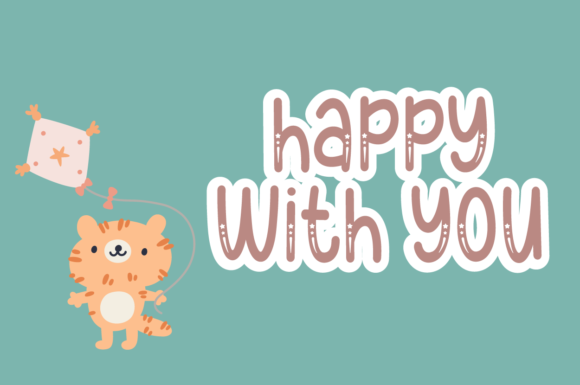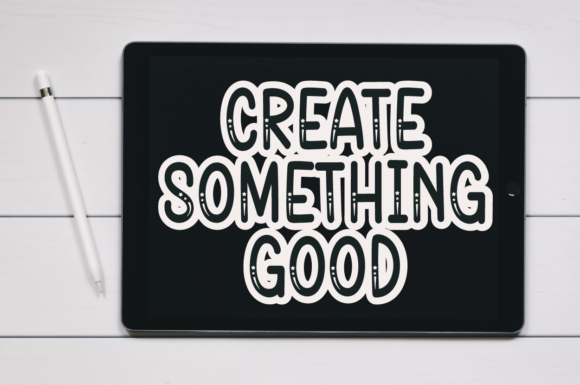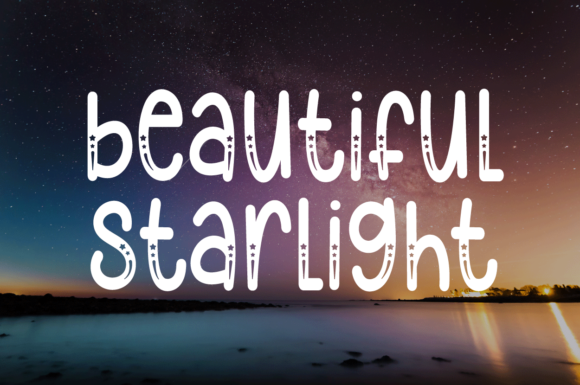
Introduction to House Star Font
House Star is a simple and interesting display font.
Its friendly feel makes this font incredibly versatile, fitting a wide range of contexts It looks stunning on thank you cards, quotes, greeting cards, logos, business cards, and any other design that needs a touch of art.
Key Features of House Star Font